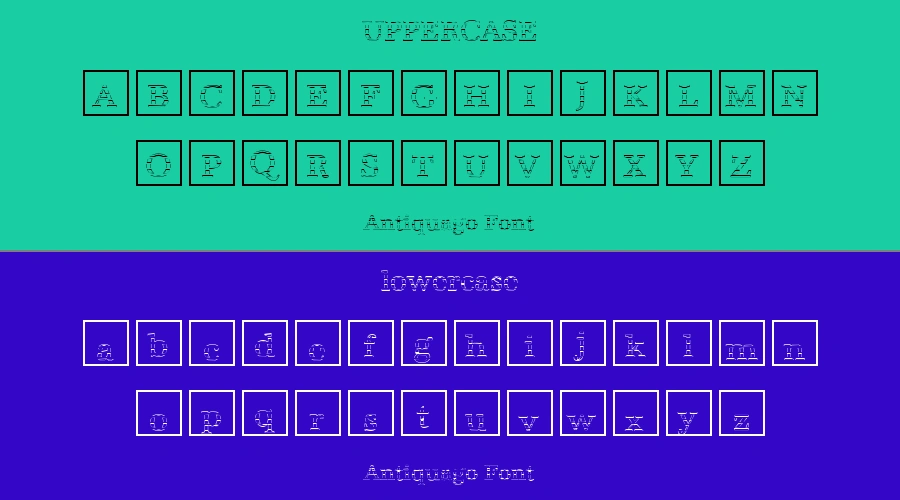
About Antiquago Font
Designed with precision, Antiquago Font merges flowing forms with visual appeal in every character. This versatility makes it particularly effective for presentation decks, where tradition and technical precision directly impact communication quality. Each letterform demonstrates meticulous craftsmanship.
Technical excellence shines through elements like graceful curves and brand signatures, enhancing typographic versatility. In packaging settings, Antiquago Font proves its worth through superior detail retention. The thoughtful execution of counter shape and regulatory compliance ensures professional results.